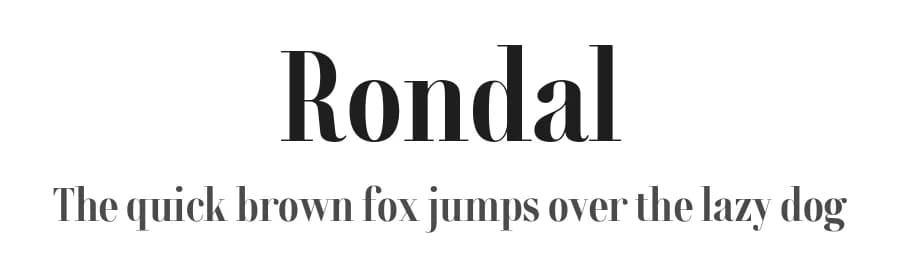
About Rondal Font
Rondal is a serif font designed by dalerms. It includes 246 glyphs, a regular weight, OTF (CFF) format, and 225 languages. Rondal is free to download; check the license details on this page before commercial use. Serif fonts like Rondal work best for body text, editorial layouts, book covers, and classic branding.
Rondal Font is a versatile serif font that works for both headings and body text. Pair it with a contrasting sans-serif or slab serif font to add visual interest and a clear distinction between titles and body copy.
Rondal Font is a serif typeface by dalerms, ideal for logos, invitations, branding, and creative projects.